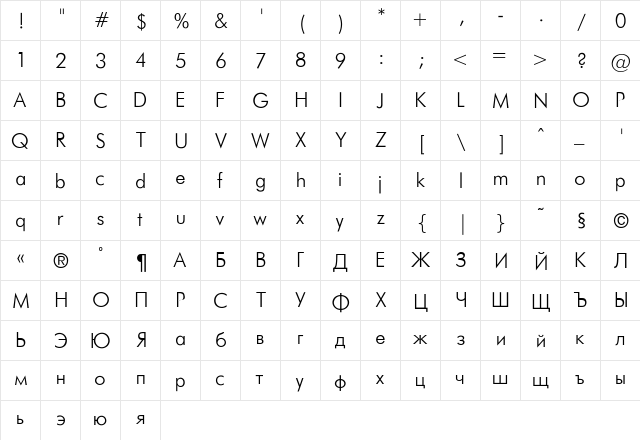
Futura_Light-Normal Regular Font Preview
Futura_Light-Normal Regular
Design Context for Futura_Light-Normal Typeface
Futura_Light-Normal has a distinctly futuristic character, with geometric precision and clean angles that feel at home in technology, gaming, and sci-fi contexts. Its slender proportions lend an understated elegance to any composition.